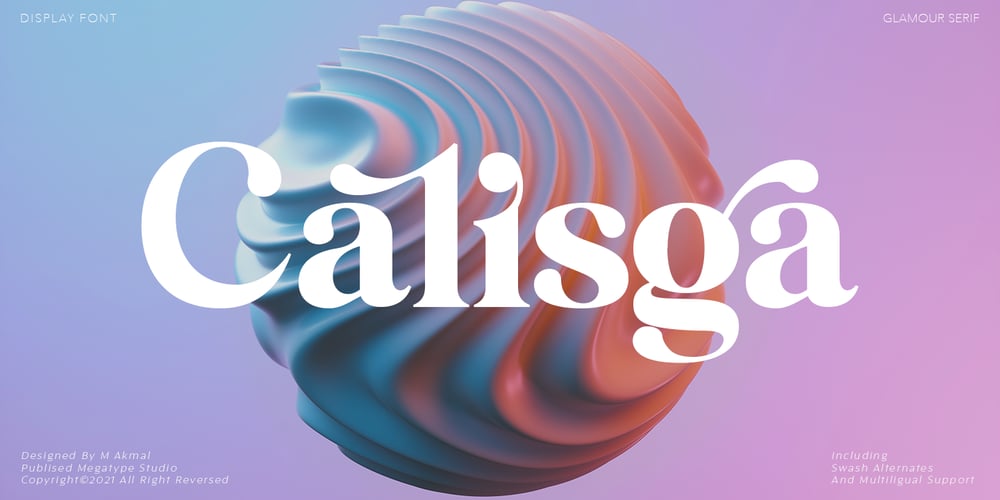
Calisga Font Family was designed by M Akmal and published by Mega Type. Calisga contains 1 styles and family package options. Calisga – Glamour Serif Display FontCalisga is a Serif Display Font with a modern, classy, fun, unique and versatile style. It looks amazing at display size and is easy to read in text size. This font also has lots of unique alternatives and binders that will make for stunning design projects.Calisga – Glamor Serif Display Font works well for branding projects, logos, wedding designs, social media posts, advertisements, product packaging, product designs, labels, photography, watermarks, invitations, or any project you are working on.Feature· All Uppercase and Lowercase· Numbers & Symbols· Supported Languages· Substitutes and Binders· PUA EncodedI really hope you enjoy it!Thank you so much for checking out my shop!